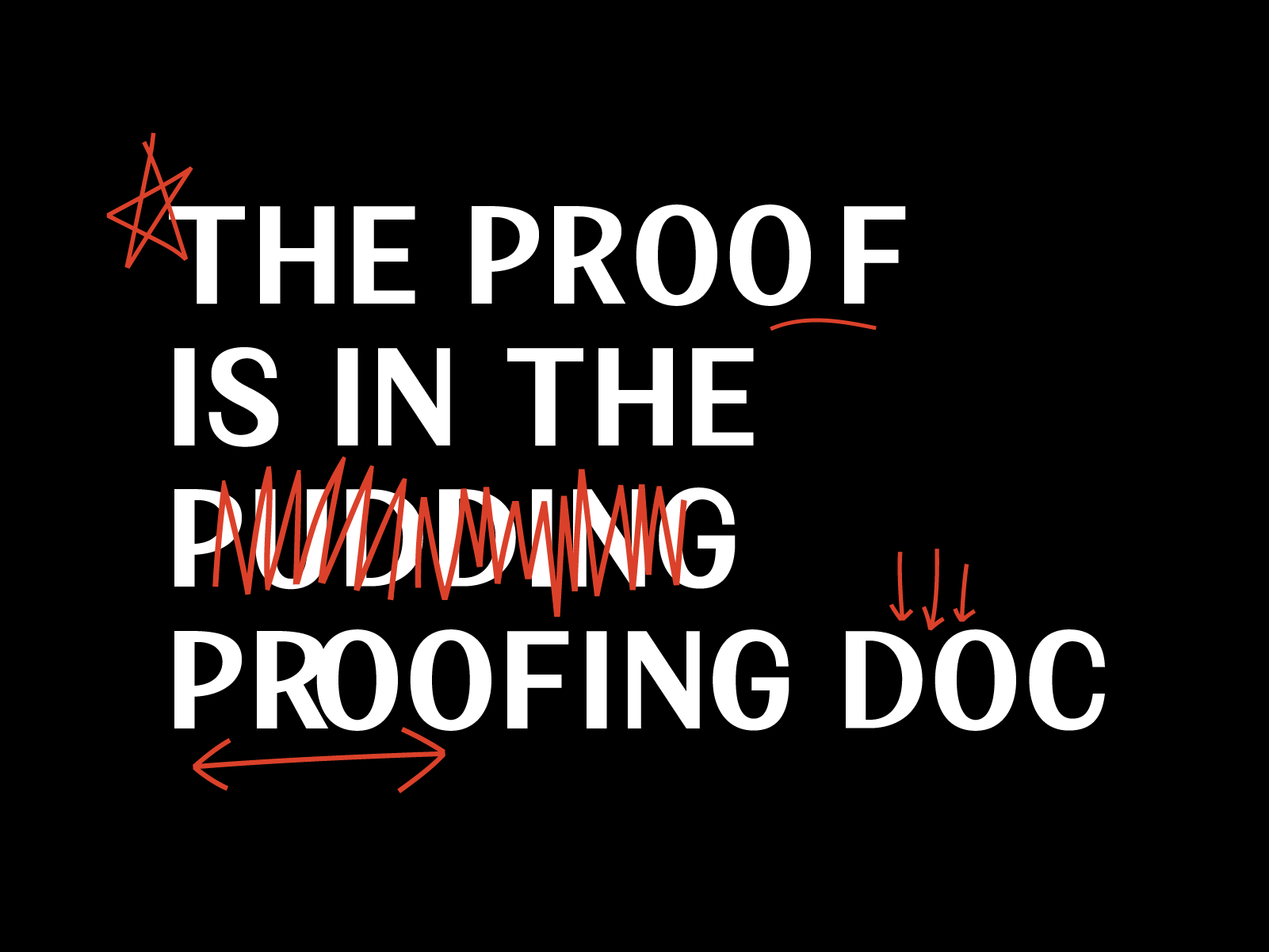
Apparently I really needed a palette cleanser after making a blackletter last week! I don’t know why I love them so much, but dingbats are the best. Maybe I’m done with actual letters??? Jk never… but maybe?
Doodly dingbats have been on the list for nearly a millennia at this point. I always thought it would be really fun to add a “hand written” tool to my arsenal. When designing these, I made sure to include multiple size options for each kind of doodle. No dinky doodles here. In terms of my process, I sketched these with my Wacom tablet using the pencil tool in illustrator. I then moved the path over to glyphs. It’s easier for me to edit the paths in Glyphs now so I refined them and resized there. Then added a stroke so they would all be uniform. I am sure I could’ve used the pencil tool in Glyphs but I felt like it was helpful to see them all on one artboard.
In the end, there are 52 little doodle shapes for you to use at your leisure. When a design is feeling a little flat or stale, adding these would definitely help! I picture these being used to jazz up boring IG posts, make fake cosmo quizzes, designing a fun powerpoint for once, and maybe to add to a resume for a grade school teacher?? Regardless, I hope you have as much fun using them as I had making them. Thanks for being supportive of my reckless dingbat ways!!
Some tips for using Squiggees:
Open the glyphs palette to see the whole characterset at once and pick the shapes you want to use
Pick a handful of characters that pair well together and repeat them randomly to make an interesting pattern!
Use the shapes on their own to add a little decoration to your work